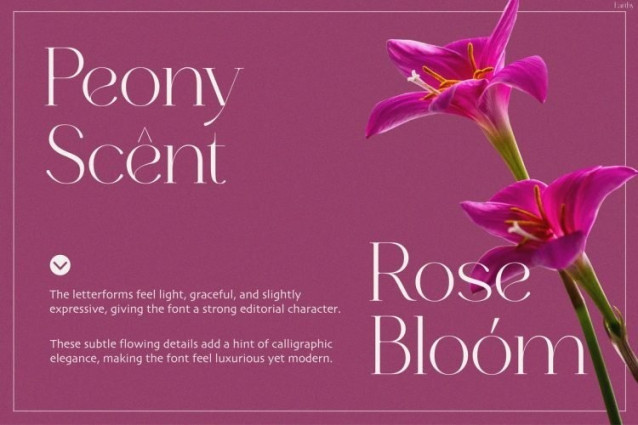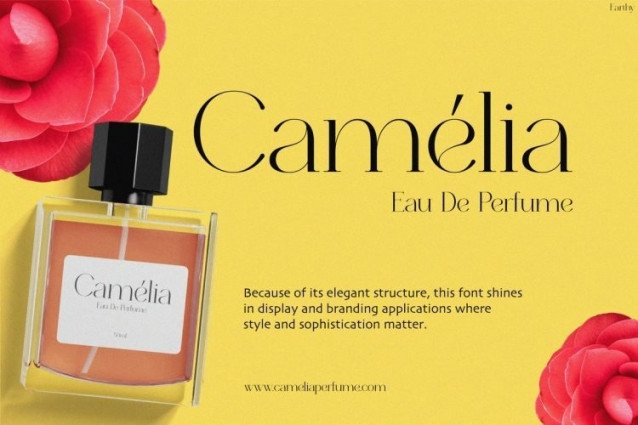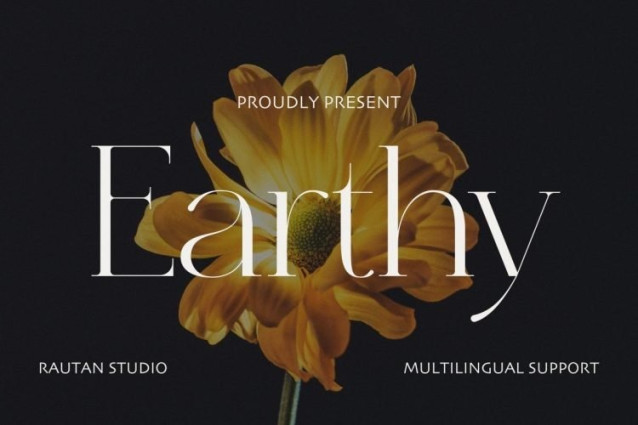
Earthy Font
Earthy Font is an elegant, high-contrast modern serif display font with a refined, fashionable personality. Its structure features delicate, hairline-thin strokes paired with clean, vertical stems and subtle, flowing calligraphic details that give the letterforms a light, graceful quality.
Best suited for luxury cosmetics packaging, perfume labels, high-end fashion magazine mastheads, editorial layouts, and botanical-themed branding. Use it at large display sizes for headlines, book covers, and elegant event signage where its delicate contrast can be fully appreciated.